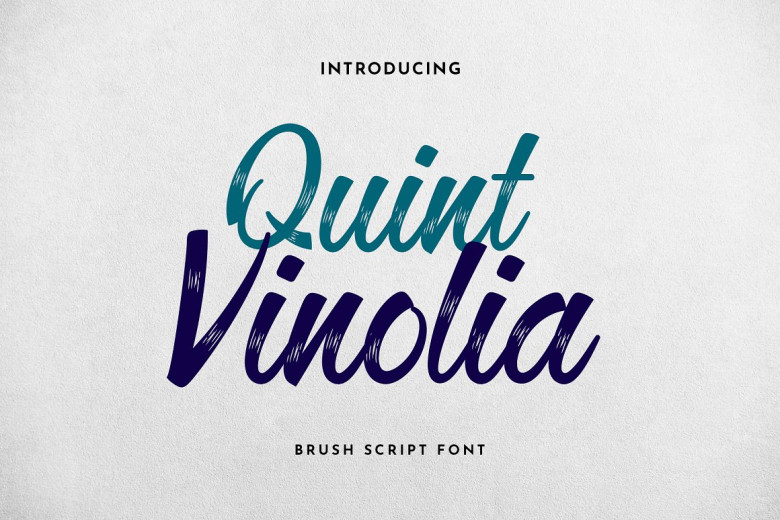
Quint Vinolia Font
Quint Vinolia is a delicate brushed handwritten script font. It has beautiful and well balanced characters and as a result, it matches a wide pool of designs. Add it to your most creative ideas and notice how it makes them come alive!
Quint Vinolia Brush Script Font